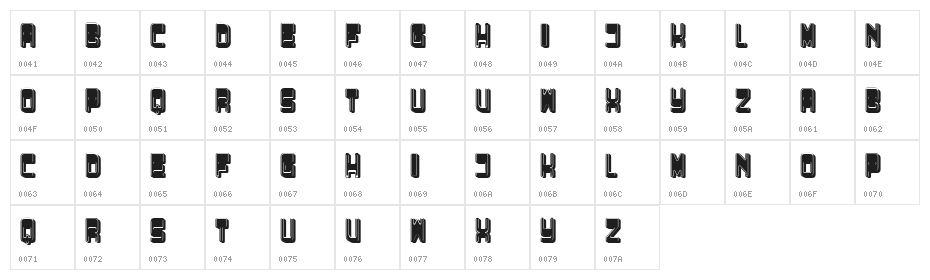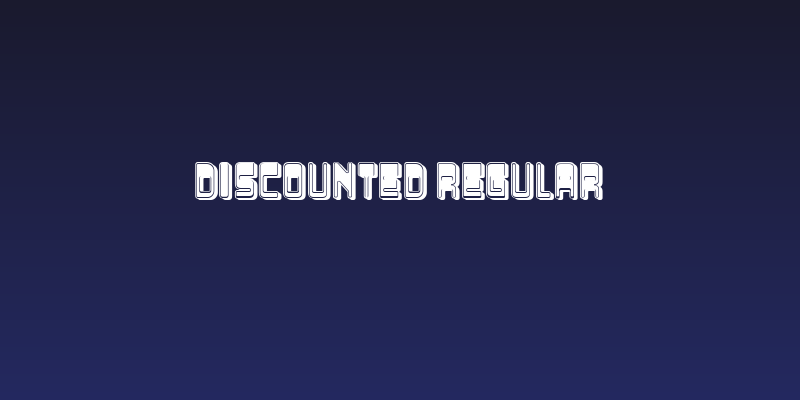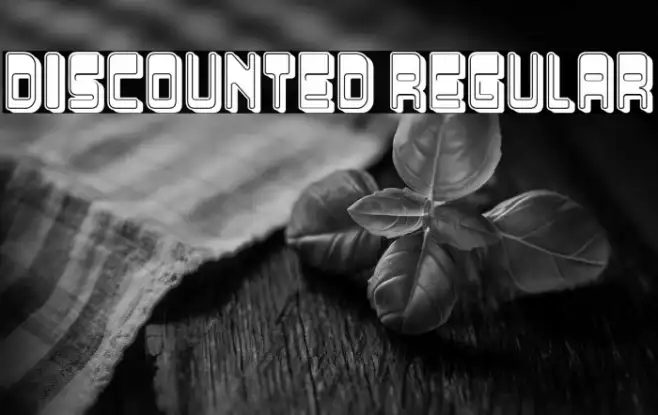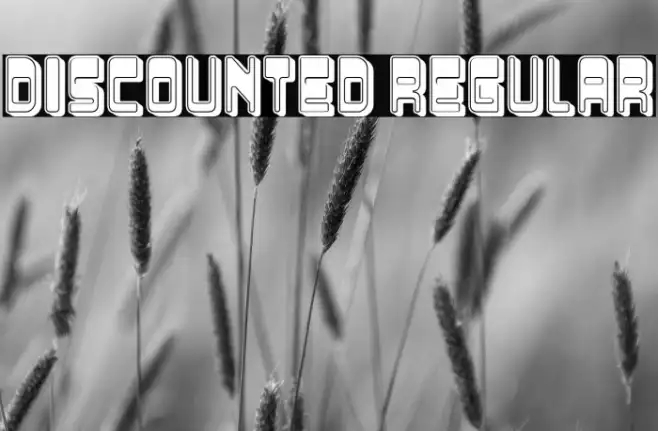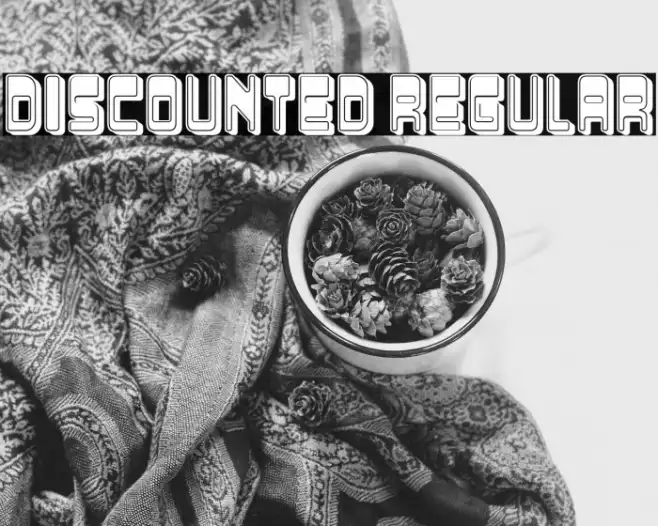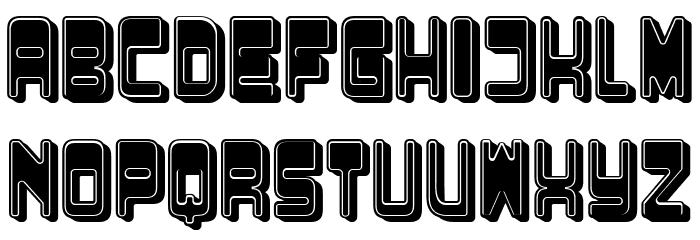
Discounted Regular Font
Discounted Regular Description
This font features a bold, geometric design with a strong, impactful presence. The characters are outlined with a thick border, giving them a three-dimensional appearance. The uppercase letters are uniform in height, with a consistent width that adds to the font's cohesive look. The style is distinctly modern, with a playful edge that makes it suitable for eye-catching designs. The font's structure is clean and precise, with sharp angles and straight lines that contribute to its contemporary feel. The spacing between characters is tight, enhancing the compact and solid nature of the text. This font is ideal for projects that require a bold statement, such as posters, headlines, and branding materials.
| Proposed Projects | Ideal for posters, headlines, branding, and any design requiring a bold statement. |